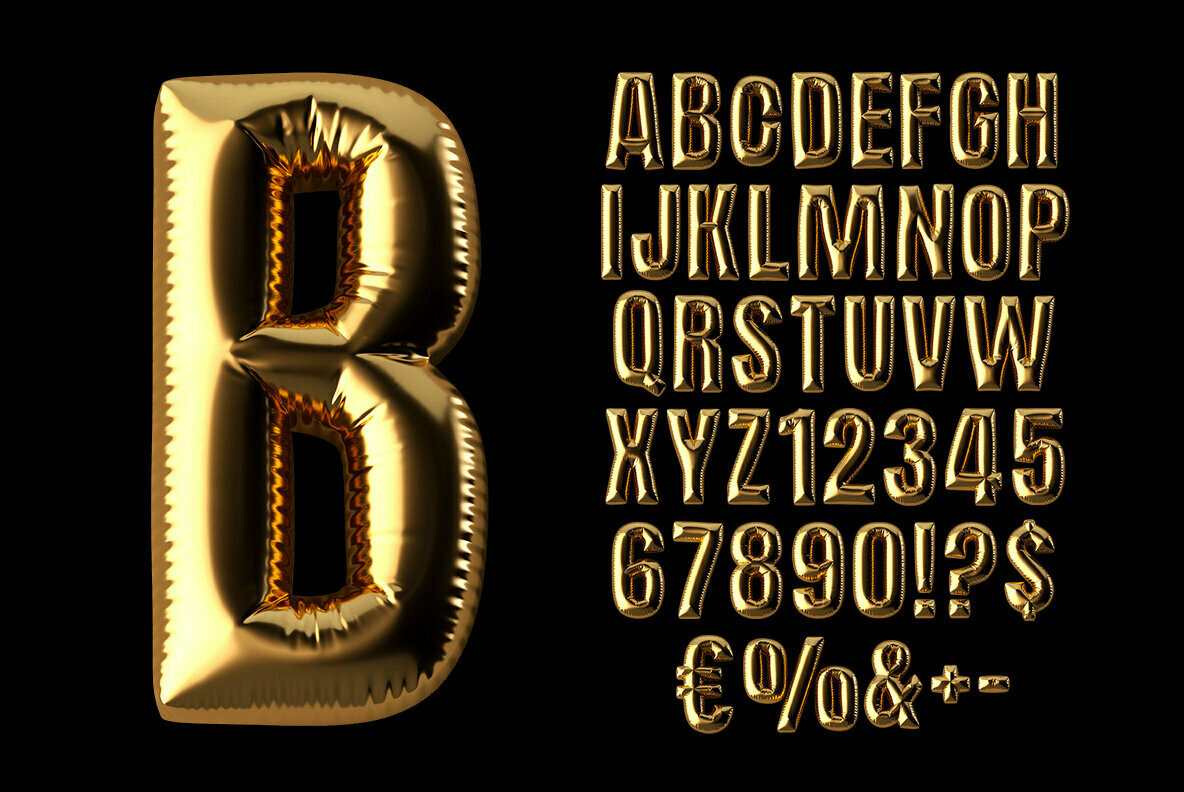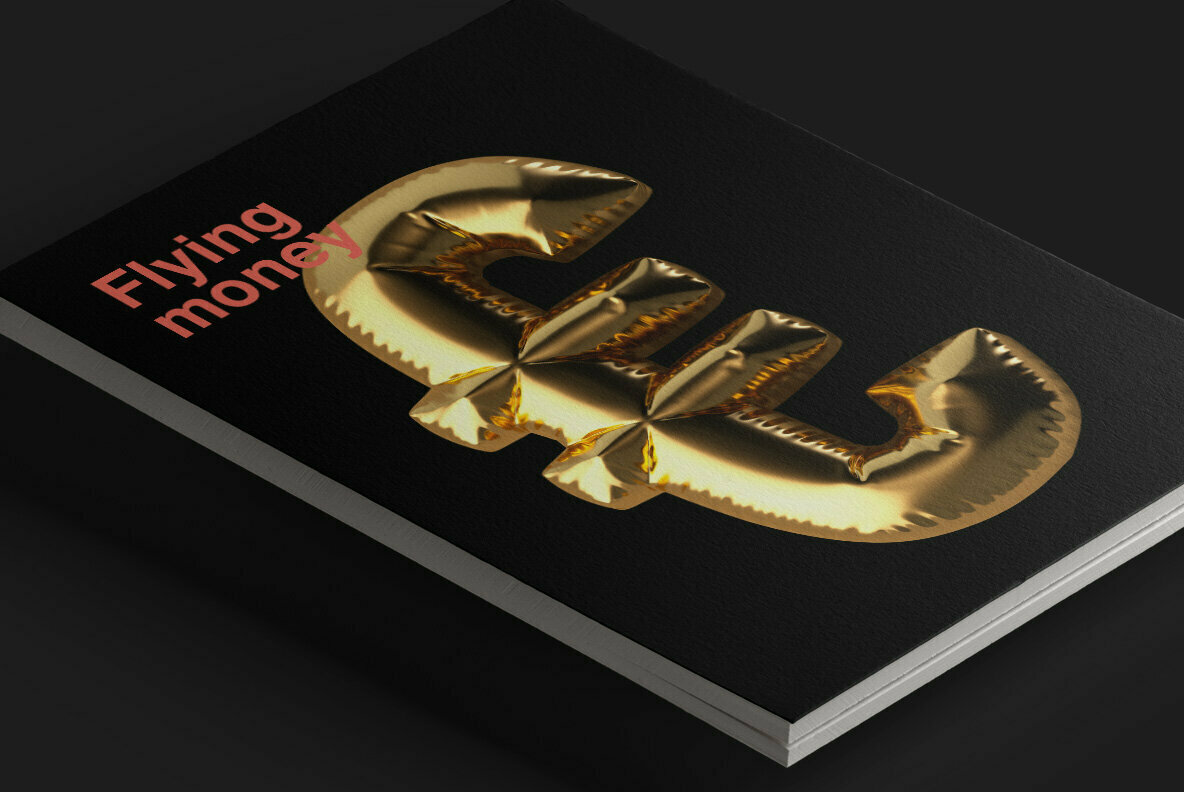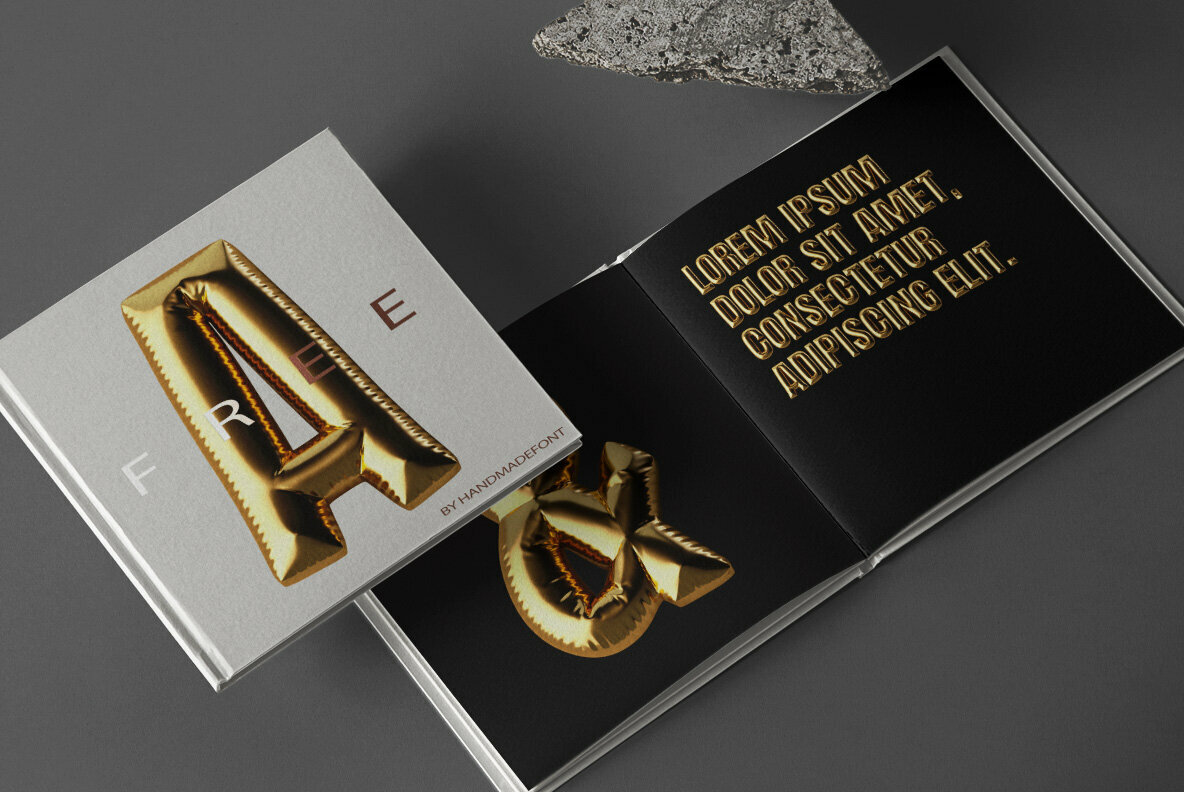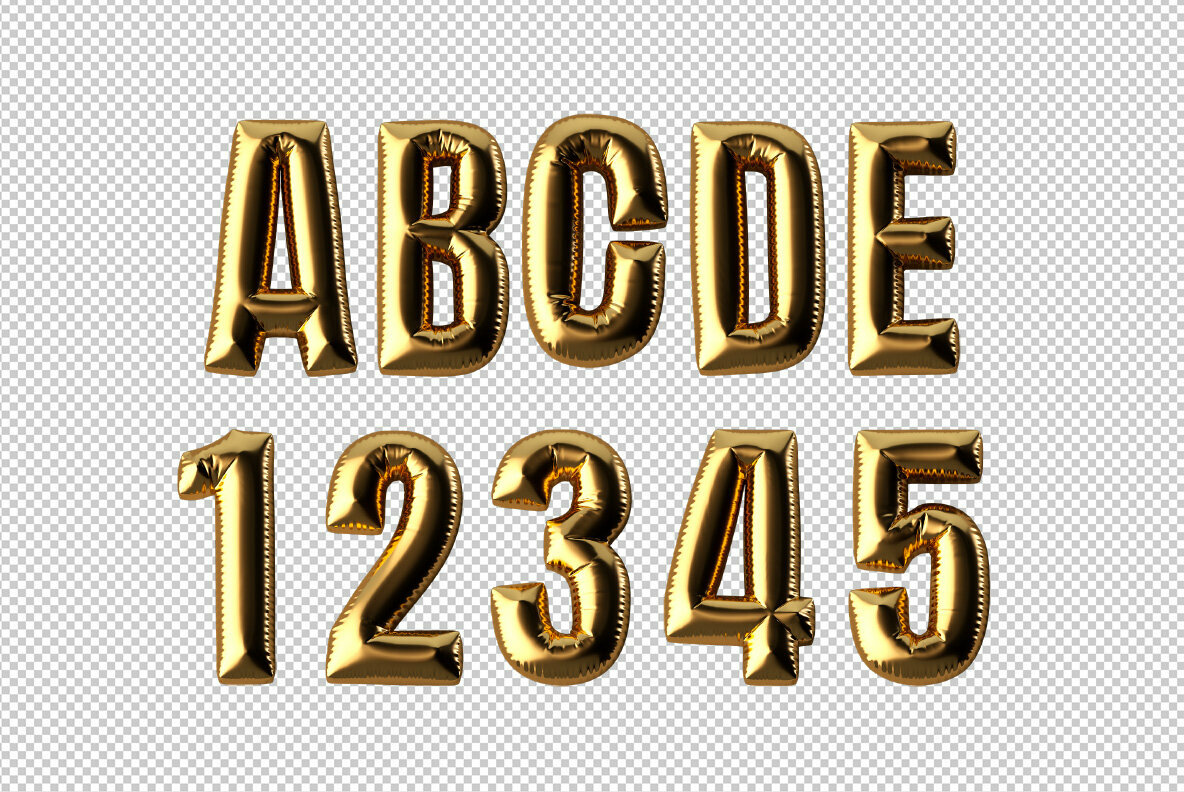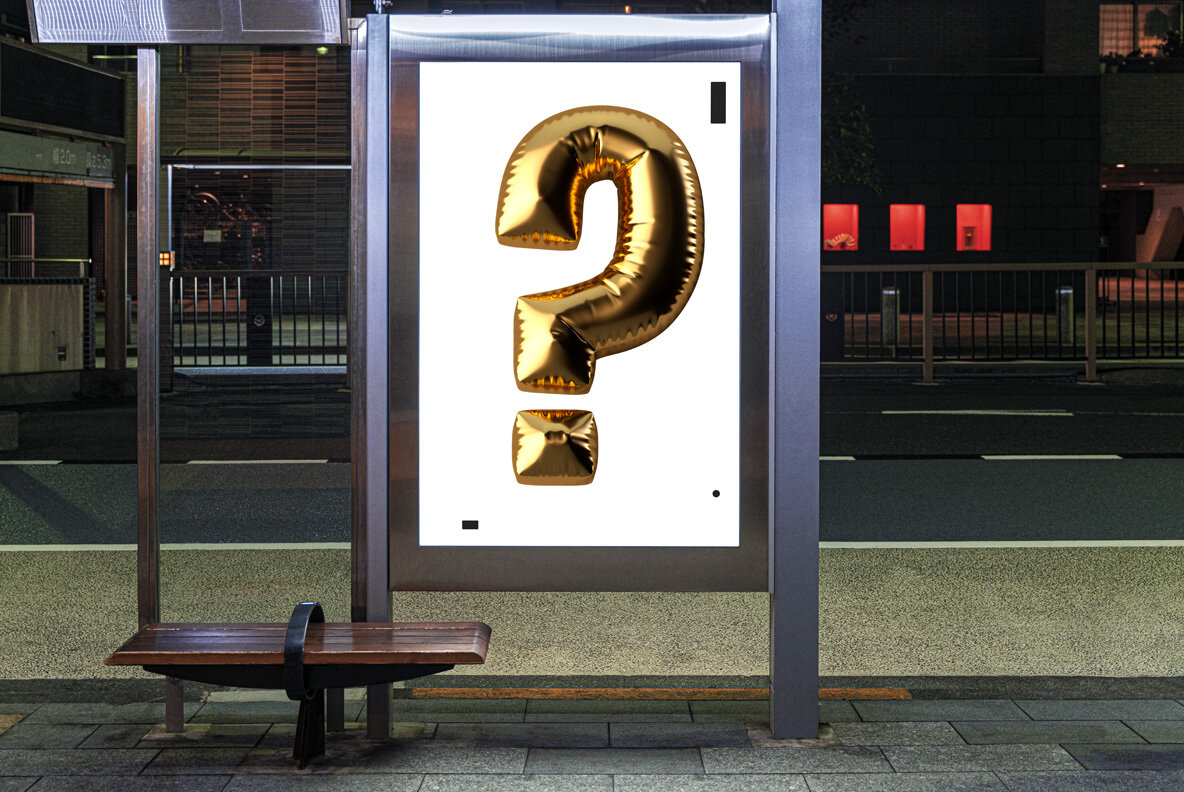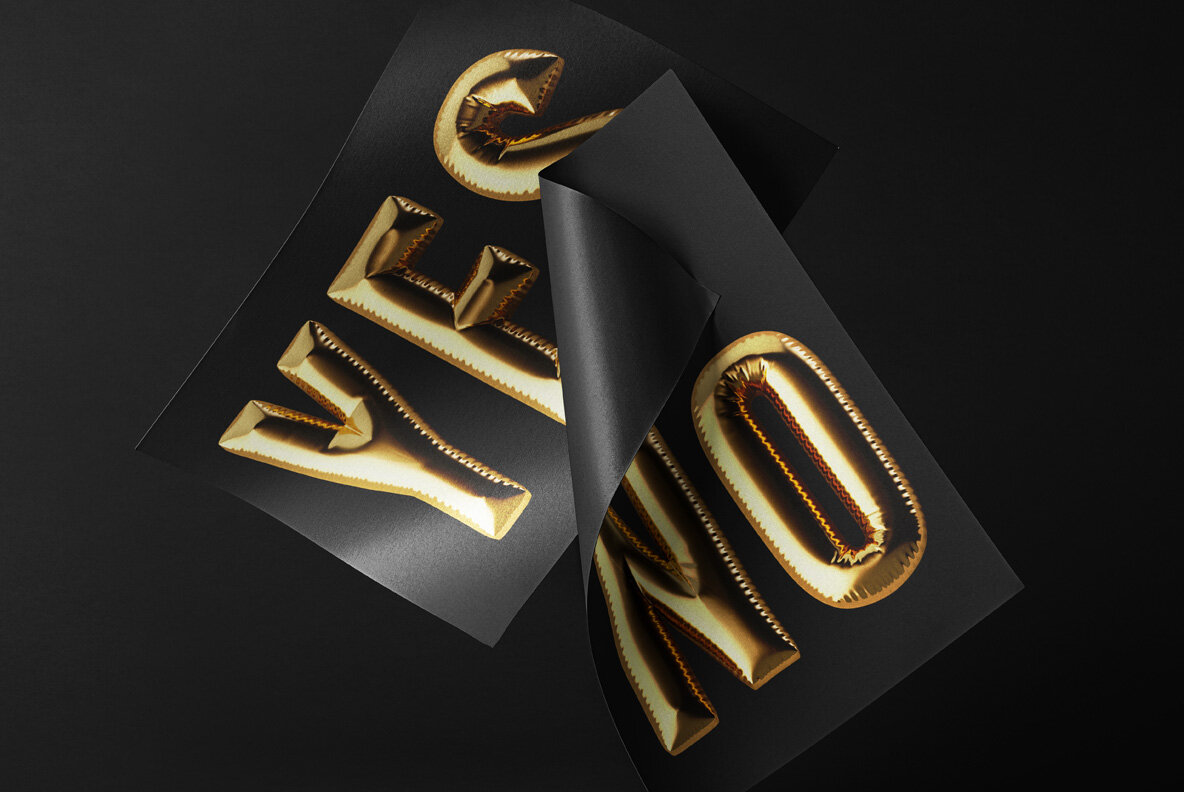
The best way to touch the sky is to fly to it. And we can suggest how to get there – on this amazing golden typeface, obviously. With Golden Balloon Font you will reach unbelievable heights of designs that require a holiday font as their crucial element.
Golden Balloon SVG Font. A high definition OpenType-SVG font built-in 3D.
Others : ! ? $ € & % + - .